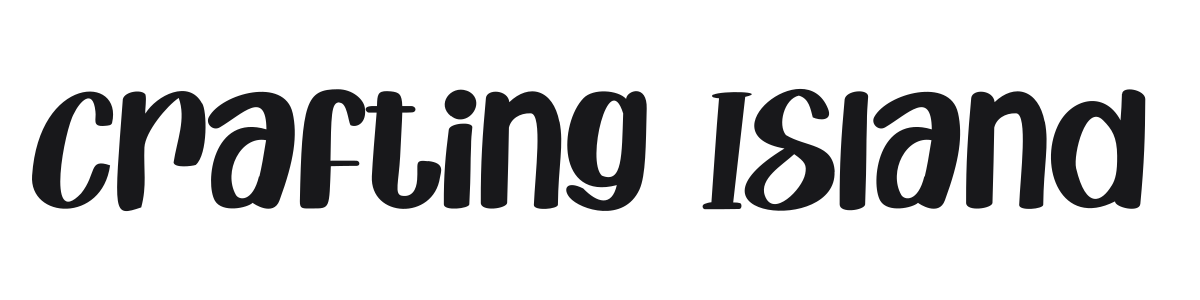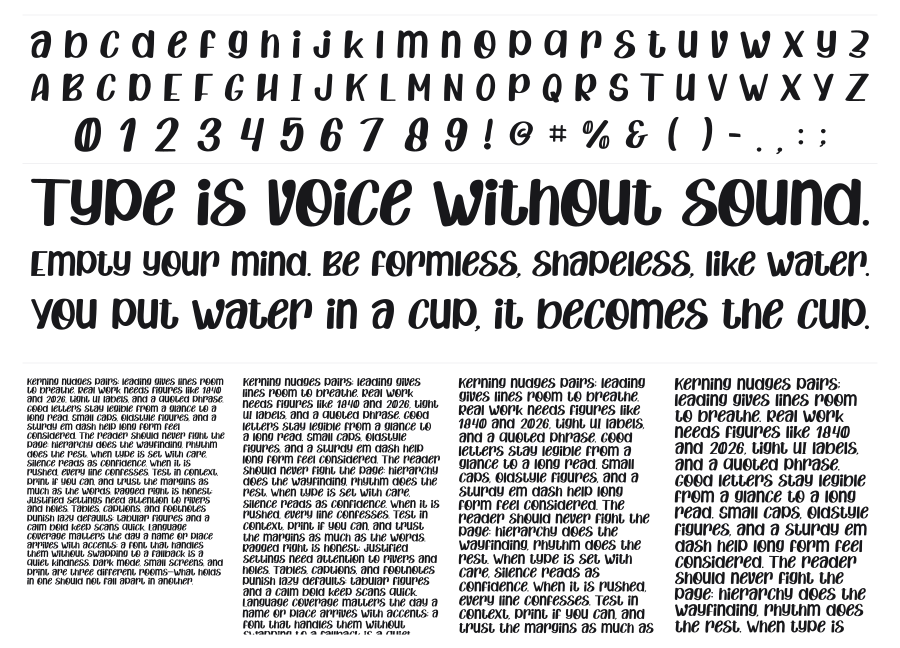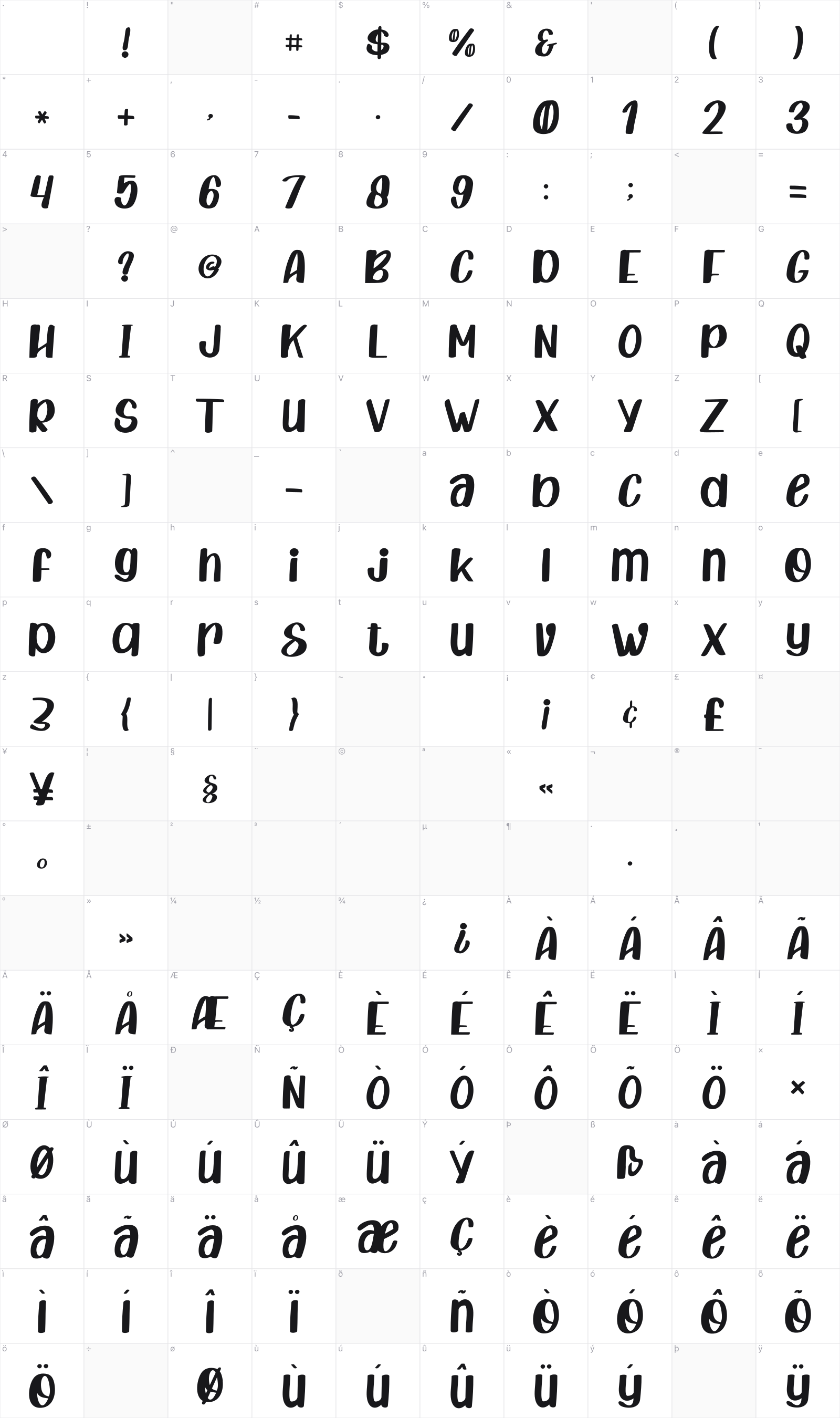
Crafting Island
Crafting Island is a bold, heavy casual script with rounded, bouncing characters that feel spontaneously hand-lettered. The thick strokes and lively baseline rhythm give it a warm, energetic personality that reads clearly at large sizes. It suits branding, packaging, and any project that needs a friendly, handcrafted voice.